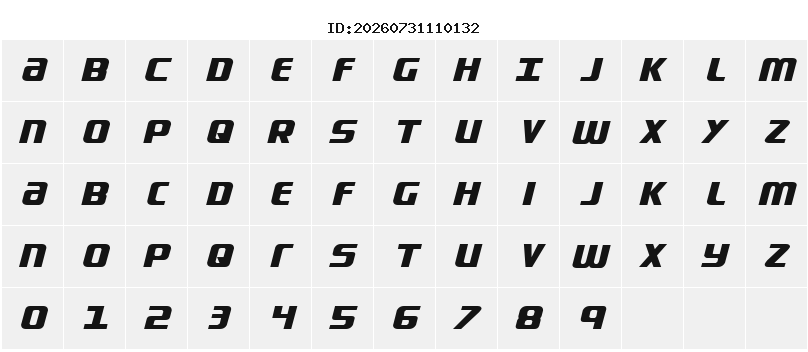
About Lightsider Compact Expanded.ttf
Lightsider Compact Expanded.ttf is a modern, elegant sans-serif font designed for ultimate readability and visual harmony. Perfect for branding, headlines, web design, and print materials.